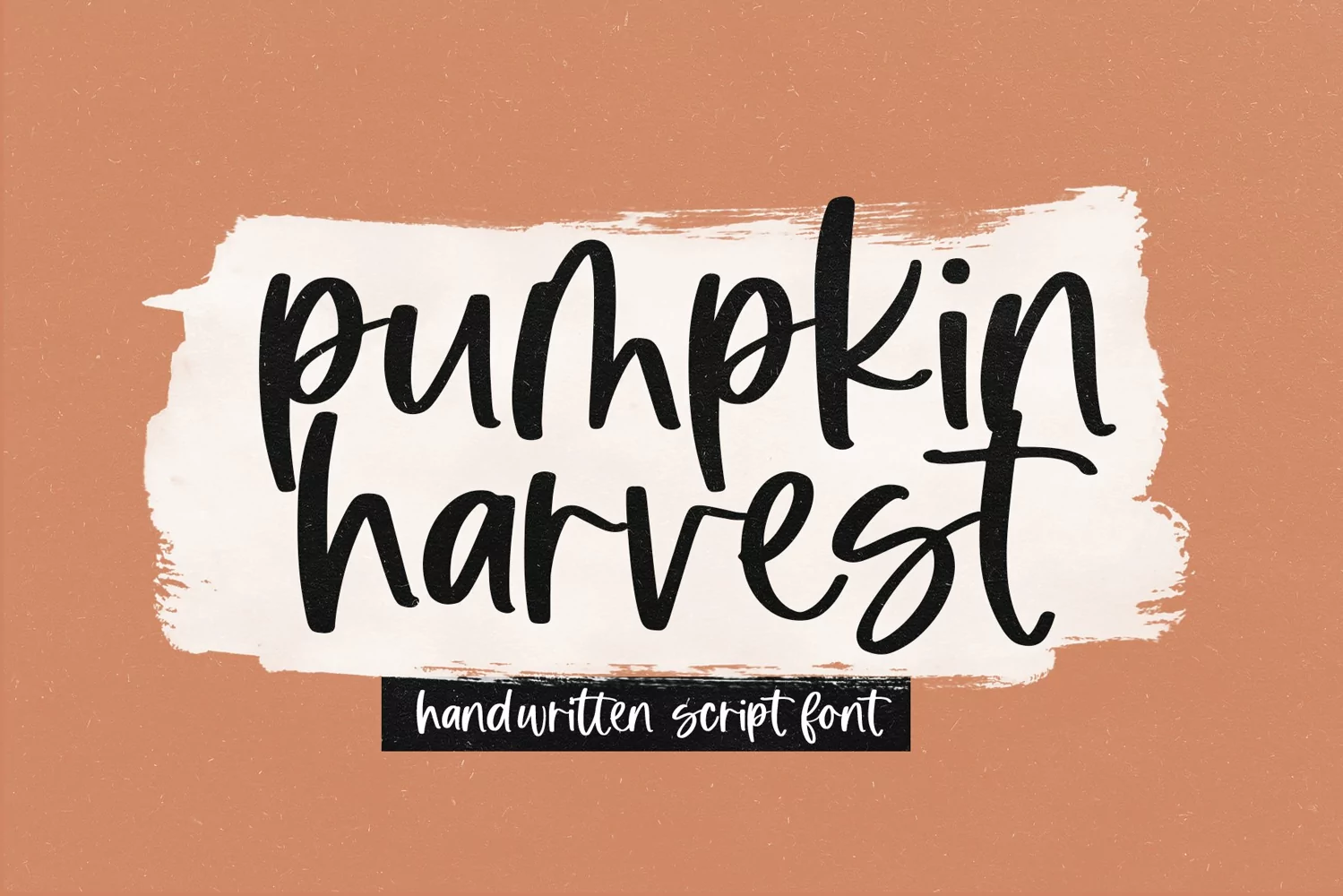
Pumpkin Harvest - Modern Handwritten Script Font
Pumpkin Harvest is a modern handwritten script font.
This font is perfect for svg designs, farmhouse signs, shirts, branding, ornaments, shirts, mugs, headings, blogs, logos, invitations and more!